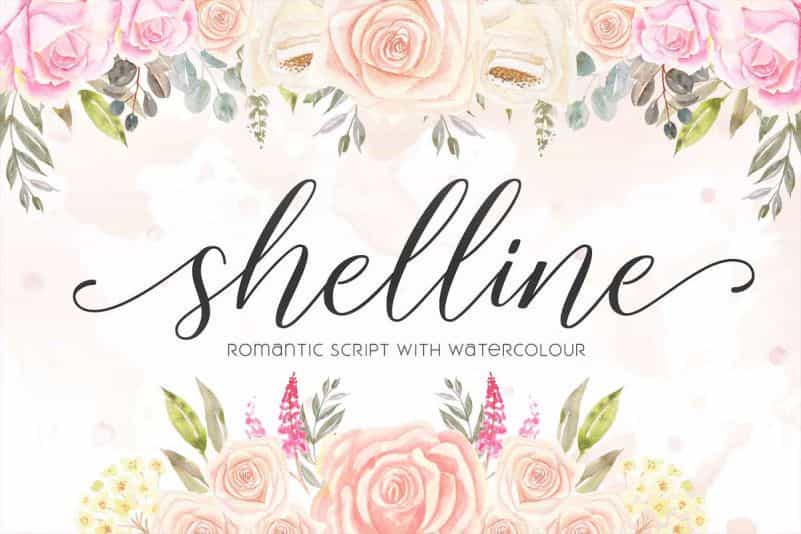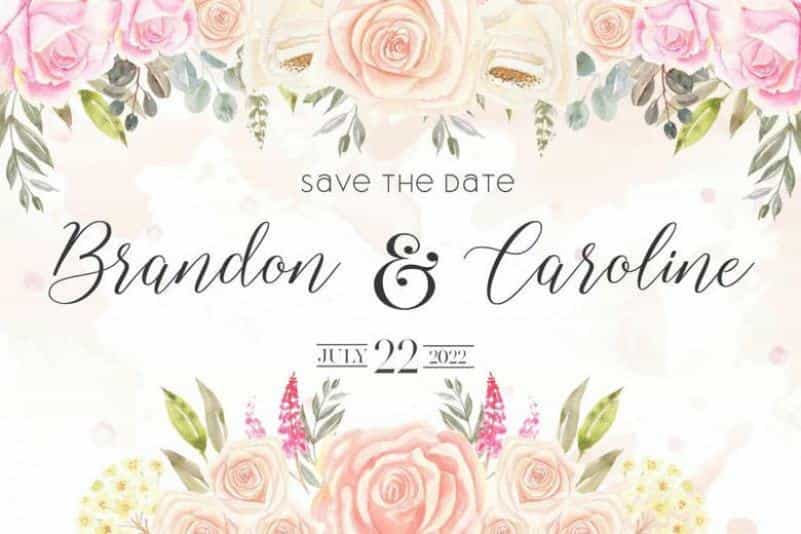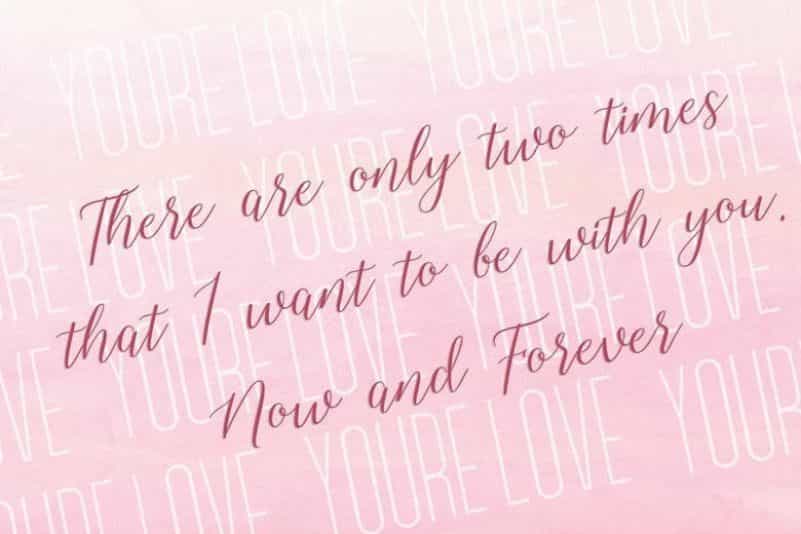
Shelline represents an handwritten font inspired by traditional calligraphy techniques. Its timeless appeal adds an allure, to every design endeavor it graces!